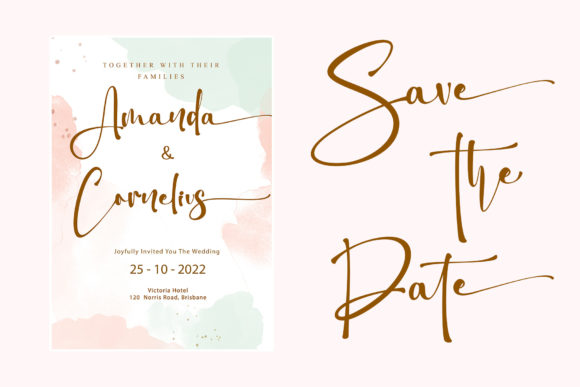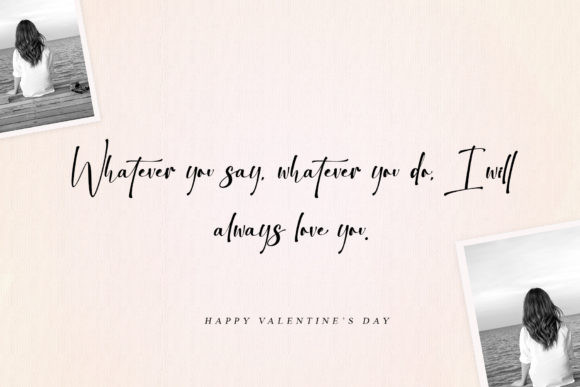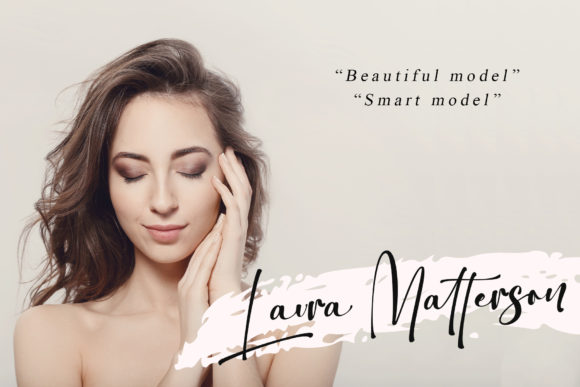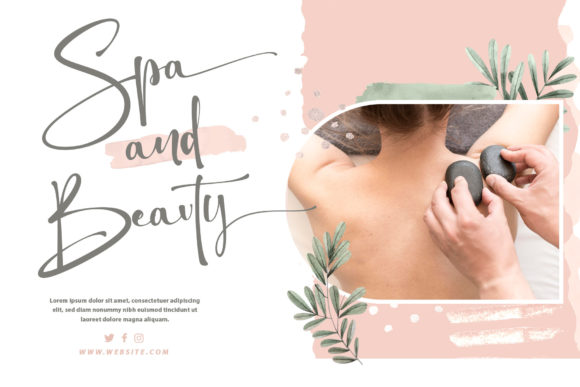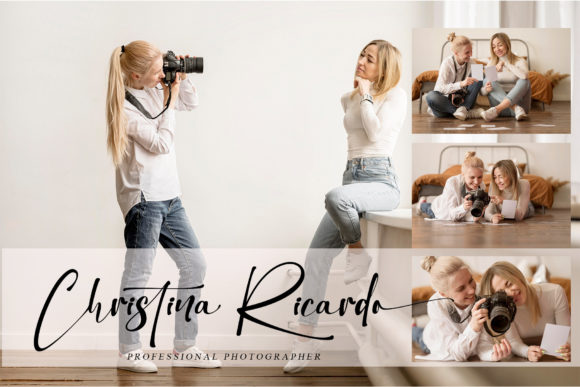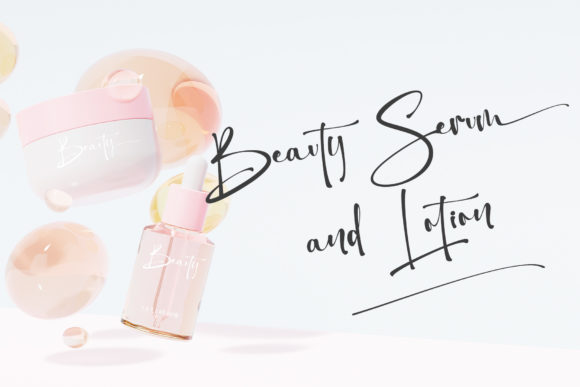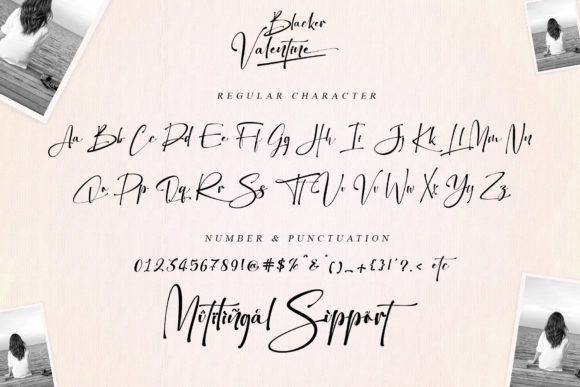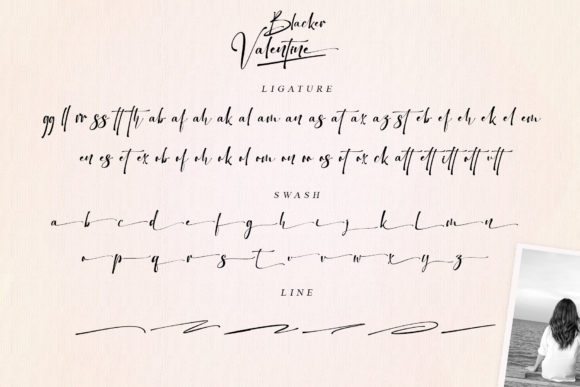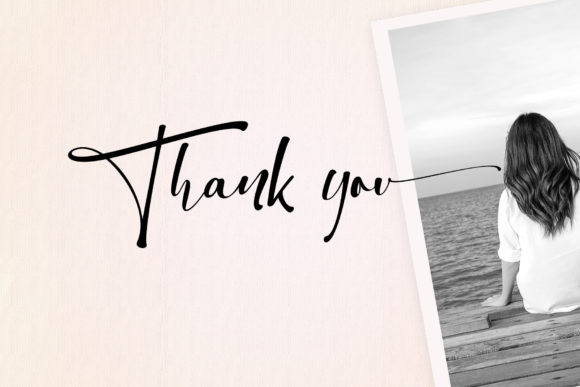
About Blacker Valentine Font
Blacker Valentine is an elegant handwritten that features classic and vintage elements. It is PUA encoded which means you can access all of the glyphs and swashes with ease!